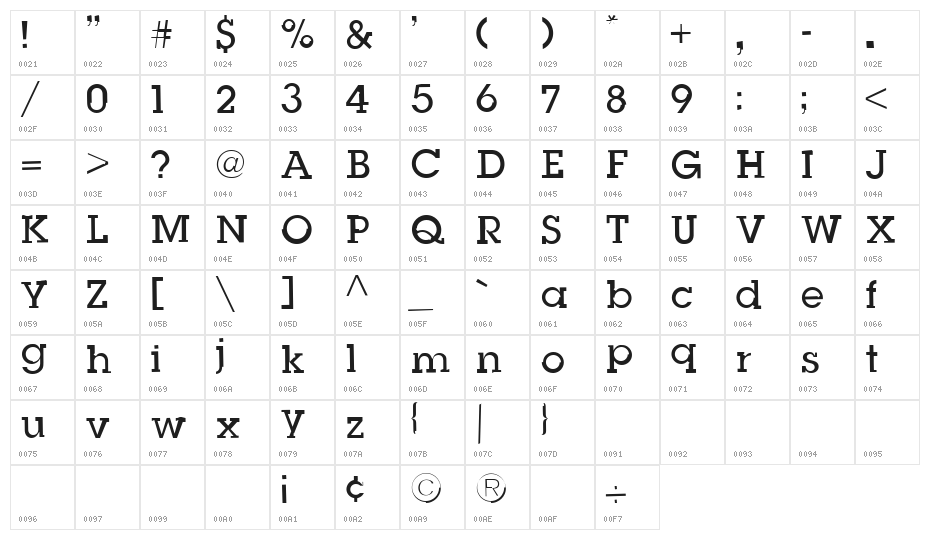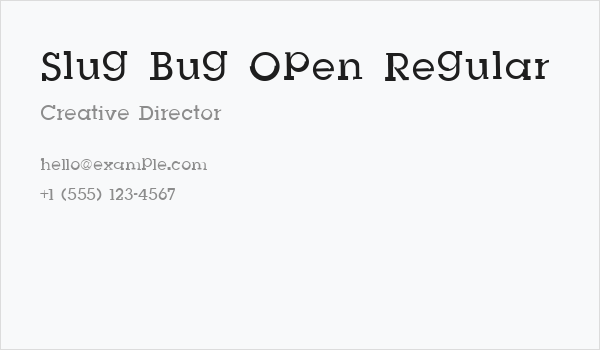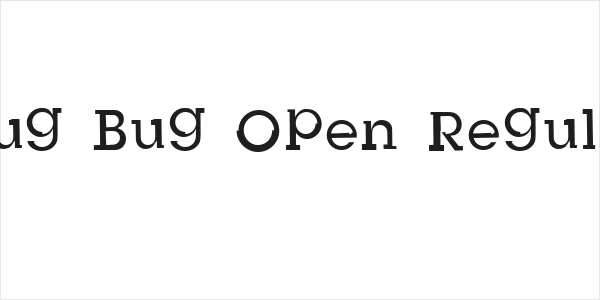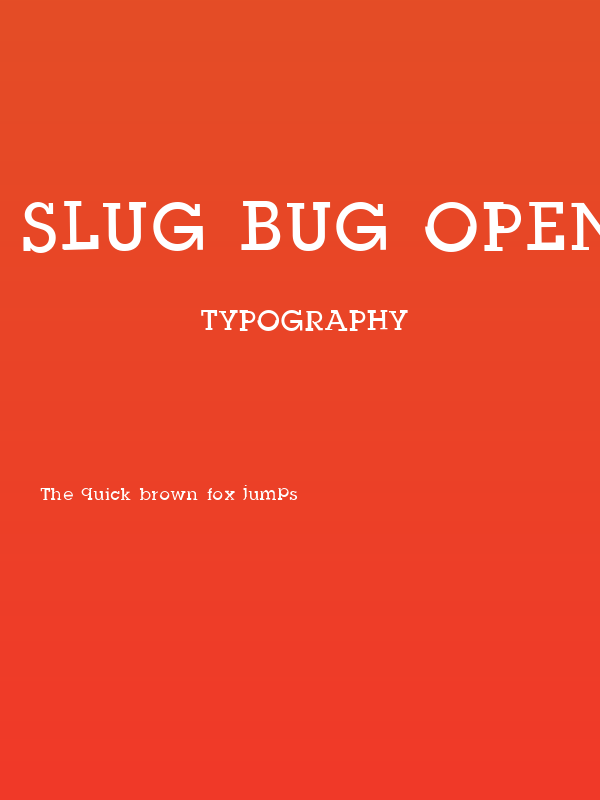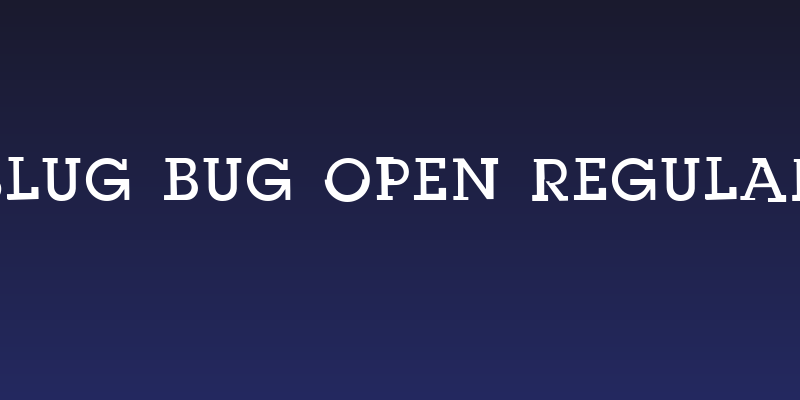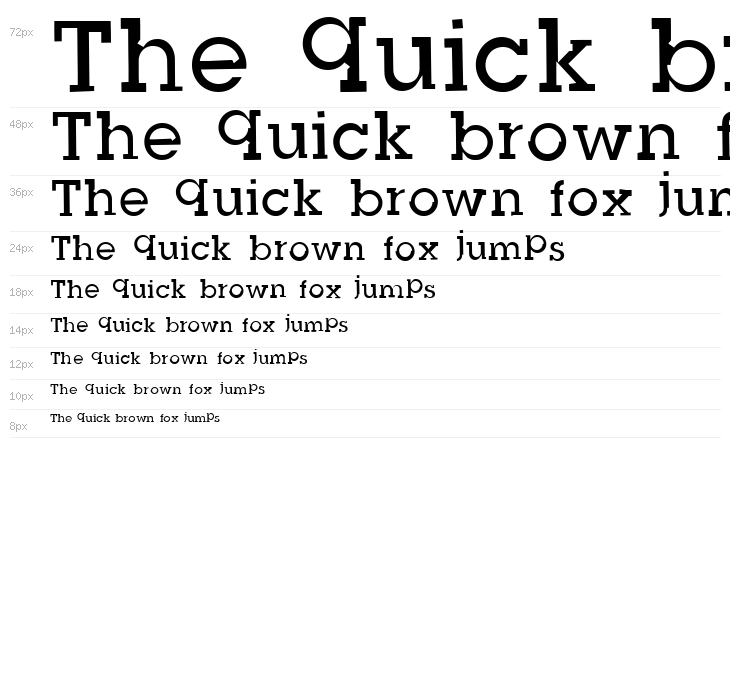
Slug Bug Open Regular Font
Slug Bug Open Regular Description
This font features a bold and robust slab serif style, characterized by thick, block-like serifs that give it a strong and impactful appearance. The uppercase letters are uniform and balanced, while the lowercase letters maintain a consistent weight, providing a harmonious look. The numerals are clear and legible, making them suitable for various applications. Special characters are distinct and well-defined, enhancing the font's versatility. Overall, the font exudes a modern yet classic feel, making it suitable for both contemporary and traditional designs.
| Overall Style | Modern Classic |
| Proposed Projects | Ideal for branding, headlines, posters, and editorial design where a strong, impactful presence is desired. |